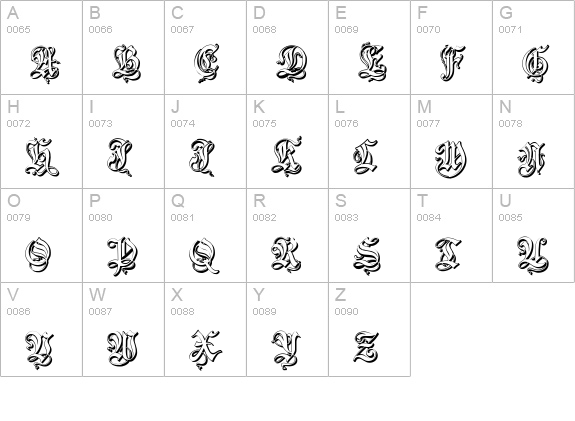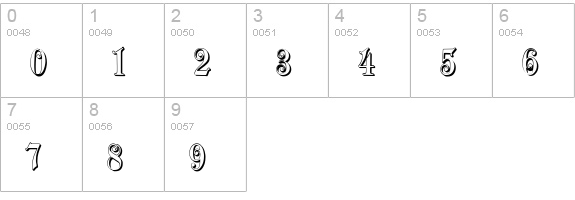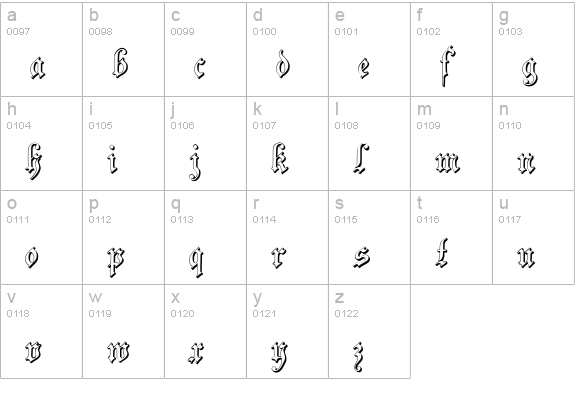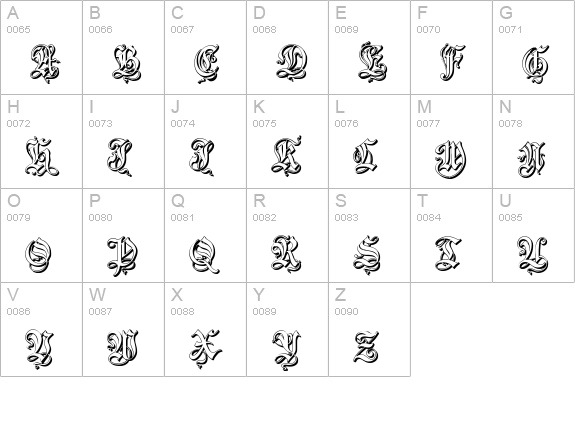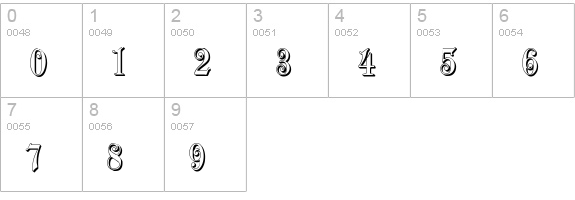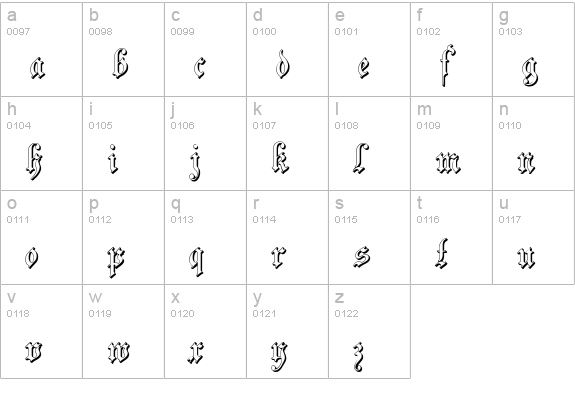
ZendaEmbossed Font Details
ZendaEmbossed is a stunning and sophisticated font that exudes elegance and charm. This unique typeface features beautiful embossed details that give your text a sense of depth and luxury. The intricate design of ZendaEmbossed is perfect for adding a touch of class to your projects, whether you're creating invitations, logos, or branding materials. The best part? ZendaEmbossed is completely free to download at FontsMarket.com! This means you can elevate your designs without breaking the bank. Don't miss out on this incredible opportunity to enhance your creations with the timeless beauty of ZendaEmbossed. Download it today and let your creativity shine!